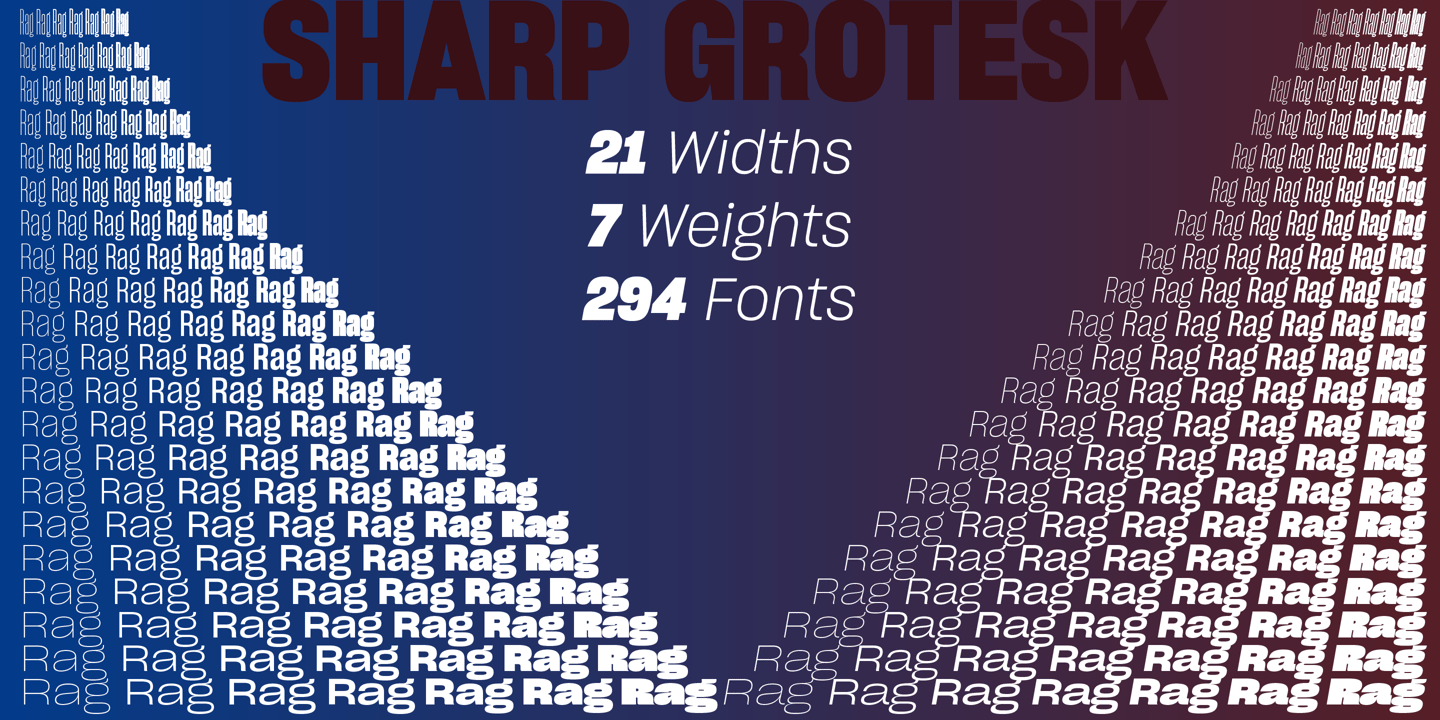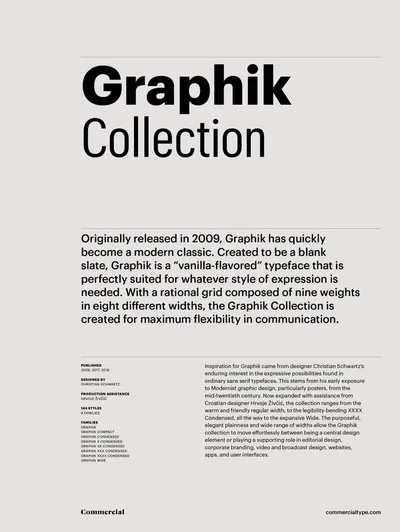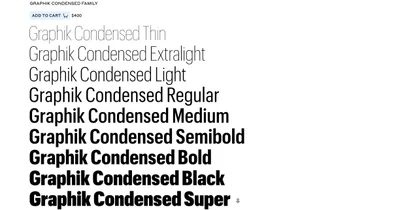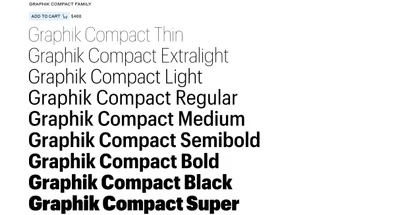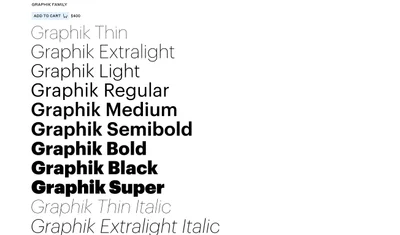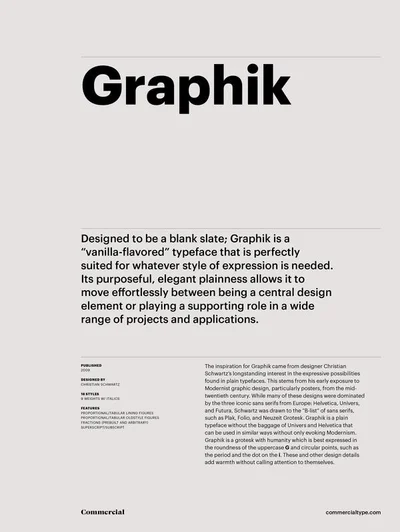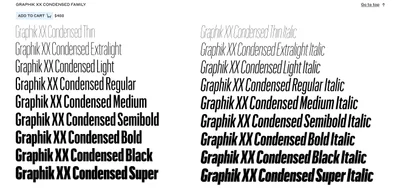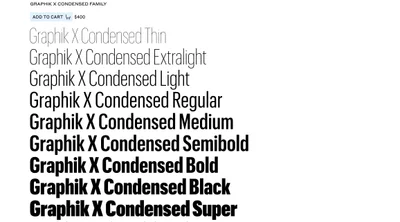
Graphik vs Sharp Grotesk
Graphik and Sharp Grotesk are both sans-serif typefaces sharing a neo-grotesque foundation. Where Graphik leans editorial, readable, Sharp Grotesk brings geometric. Compare which suits your Branding project.
| Feature | Graphik | Sharp Grotesk |
| Variable Font | No | Yes |
| Weights | Multiple | Variable |
| Language Support | latin, latin-extended, cyrillic | latin, latin-extended |
| Source | commercial-type | Sharp Type |
Where You'll See These Fonts
Graphik
- Tech startup brand identities
- Corporate rebrand projects
- Magazine and editorial layouts
- SaaS product dashboards
- Financial services communications
Sharp Grotesk
- Airbnb internal brand materials
- Nike select campaign typography
- Technology company brand systems
- Creative agency identities
- Responsive editorial layouts
Recommended: Graphik
- editorial, readable design character
- Suited for Advertising and Publishing
- From commercial-type
Consider: Sharp Grotesk
- geometric design character
- Suited for Packaging and Environmental
- From Sharp Type
- Available as a variable font